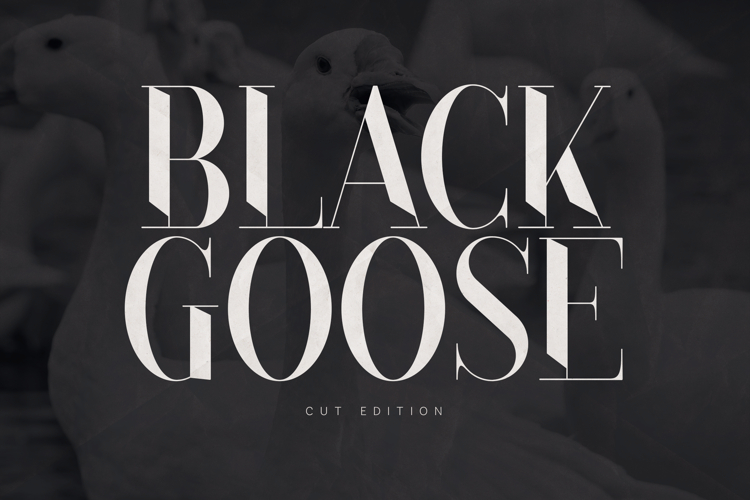
Black Goose Elegant Modern Serif Font
Black Goose – Cut Edition is a refined modern serif typeface that combines elegant contrast with distinctive sculpted cuts. The subtle sliced details within the letterforms create a sophisticated and contemporary aesthetic while maintaining the timeless beauty of classic serif typography.
Designed for luxury branding and editorial design, Black Goose delivers strong visual impact in headlines, logos, and premium layouts. The elegant proportions and dramatic contrast make it perfect for fashion, magazines, high-end packaging, and creative branding projects.
The font includes uppercase and lowercase characters, numerals, punctuation, and extended multilingual language support, making it suitable for global design work.
Perfect for• Luxury branding
• Editorial design
• Fashion magazines
• Logo design
• High-end packaging
• Posters
• Social media graphics
• Website headlines